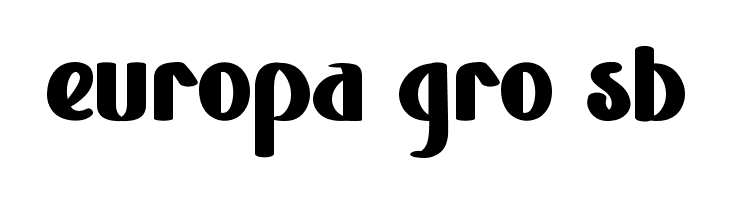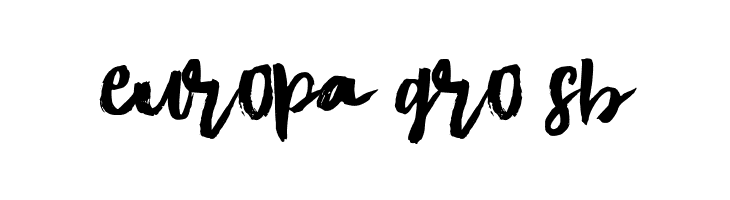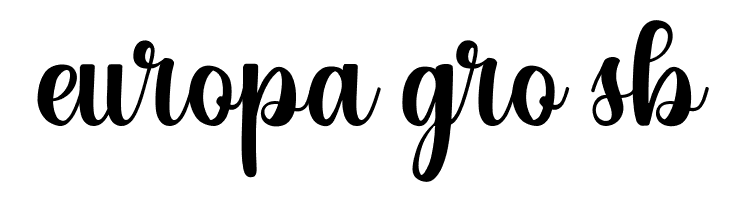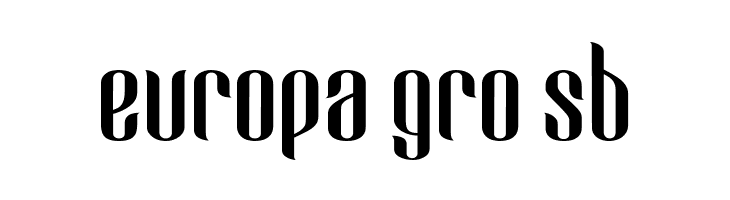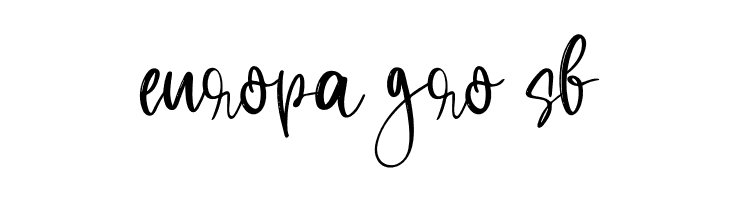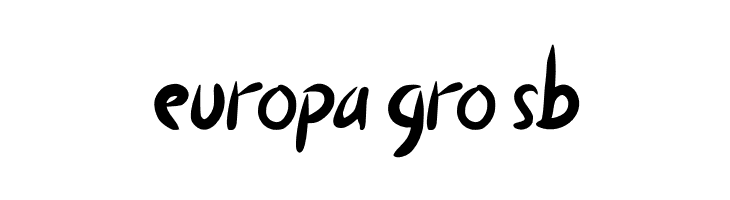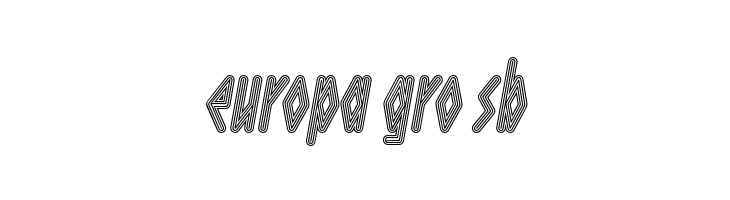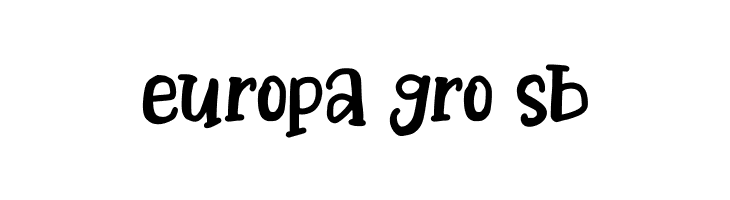
• Bluehonest Demo Version
A flowing, cursive script font with elegant, interconnected characters.
• Blue Sea
A bold, playful font with a modern and decorative style.
• Bluesky
A bold, brush-style font with expressive, dynamic strokes.
• bluesfather
A bold, expressive script font with elegant, flowing letterforms.
• Blue Angel - Demo Regular
A bold, modern font with elongated vertical strokes and angular edges.
• Blue Jeans
A playful, handwritten font with fluid strokes and a casual vibe.
• Mr. Blue
A playful, bold handwritten font with dynamic strokes.
• Baby Baby Color Blue Yellow Slanted
A playful, slanted font with outlined, layered characters and a modern geometric style.
• Baby Baby Color Blue Yellow Upright
A decorative, geometric font with outlined characters and a modern aesthetic.
• BlueBucket
A playful, hand-drawn font with bold, rounded strokes and a whimsical style.